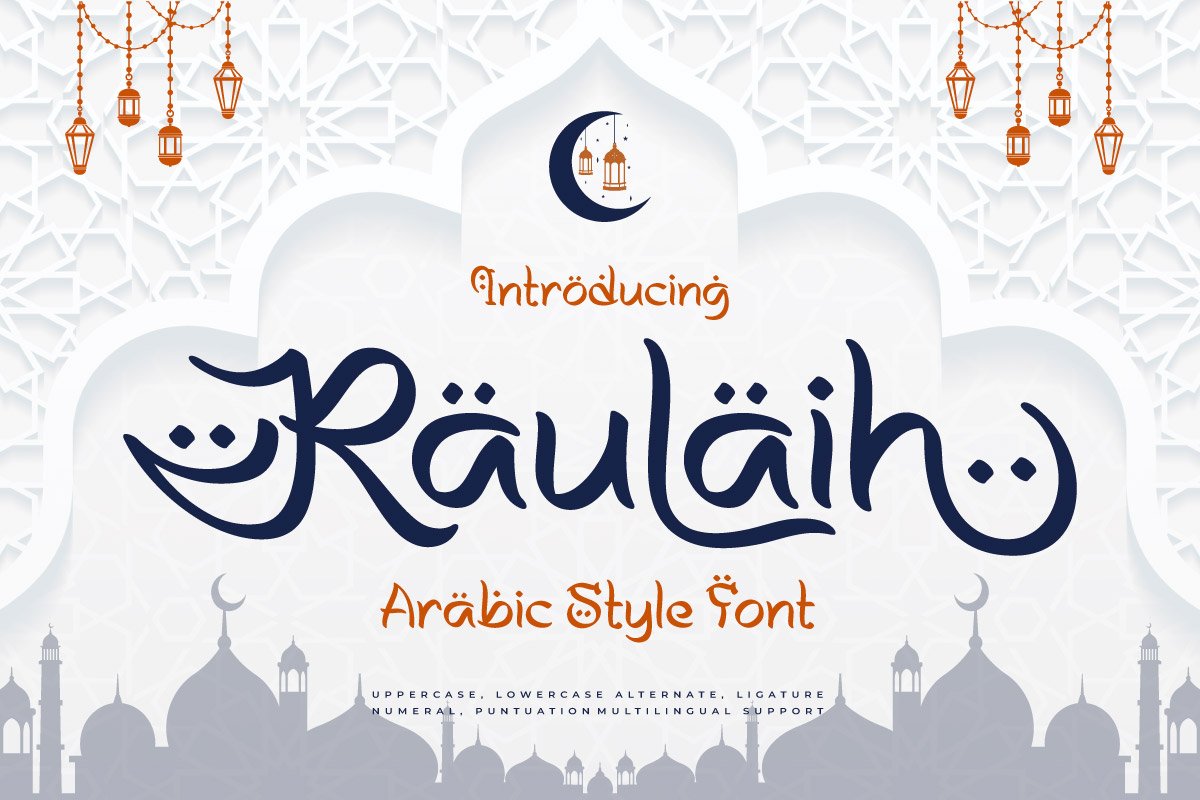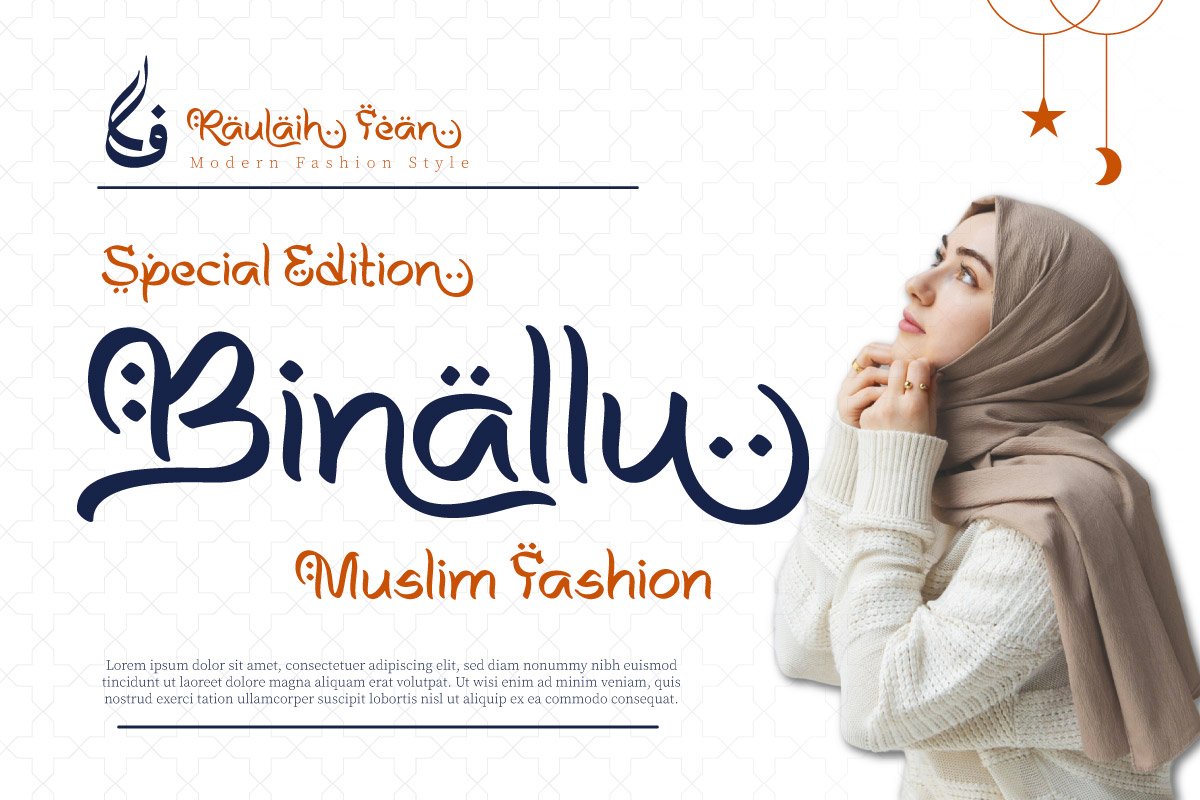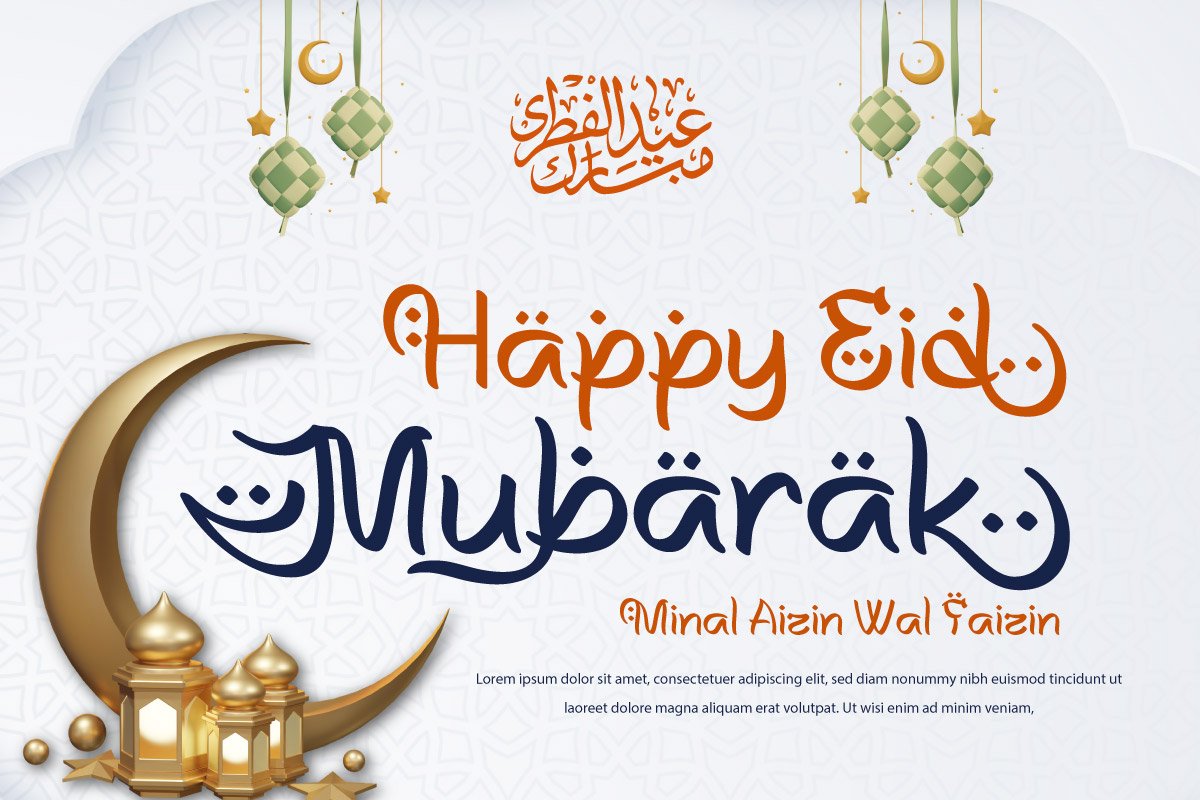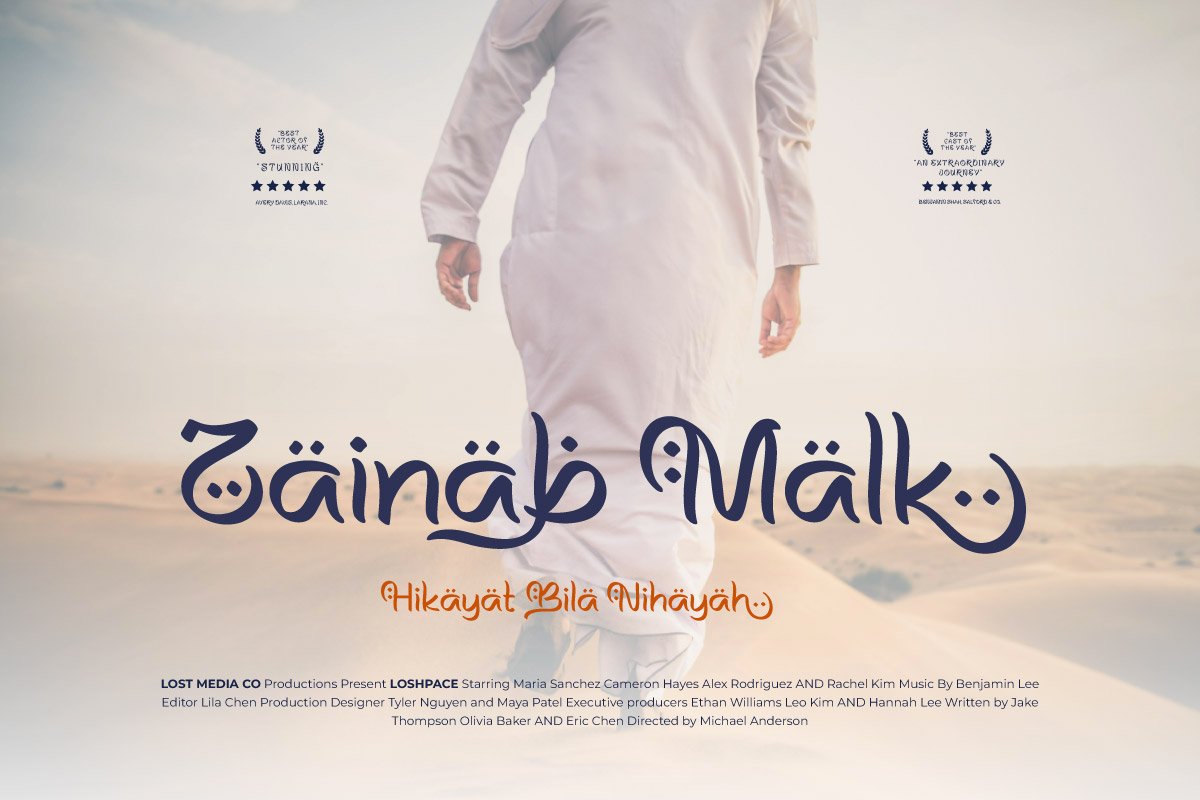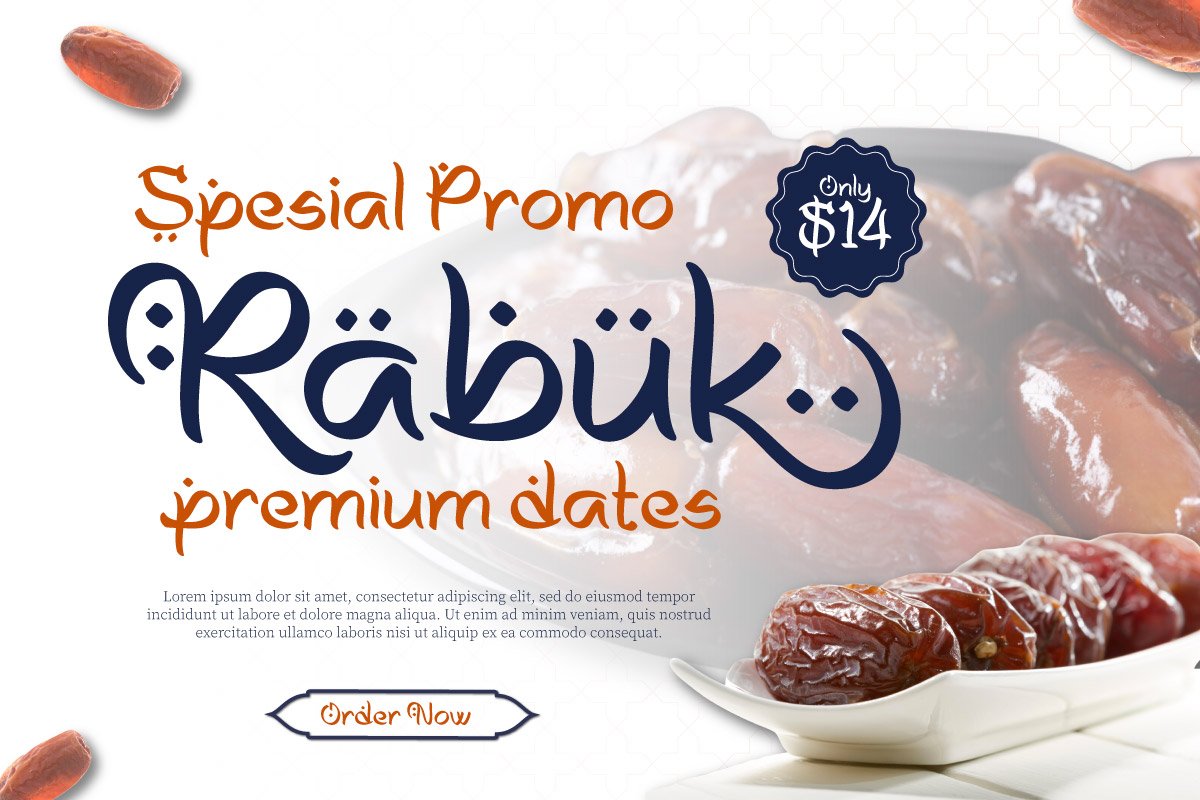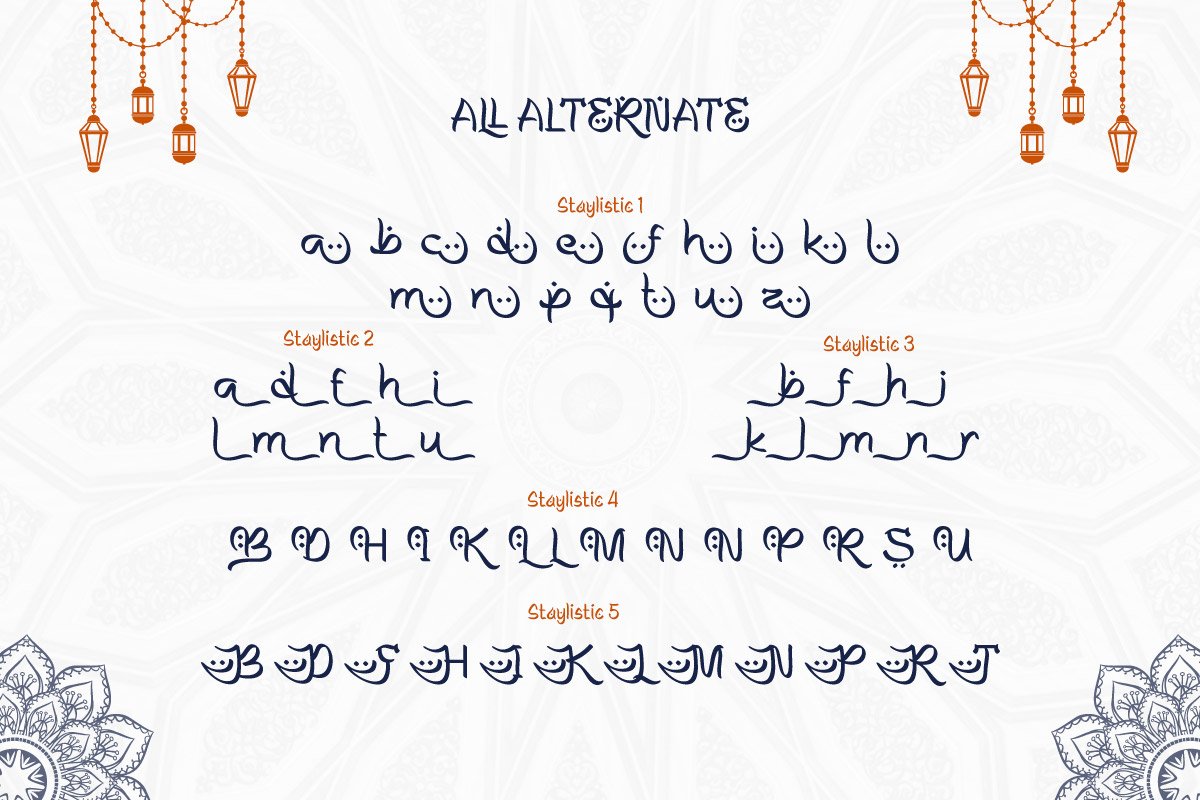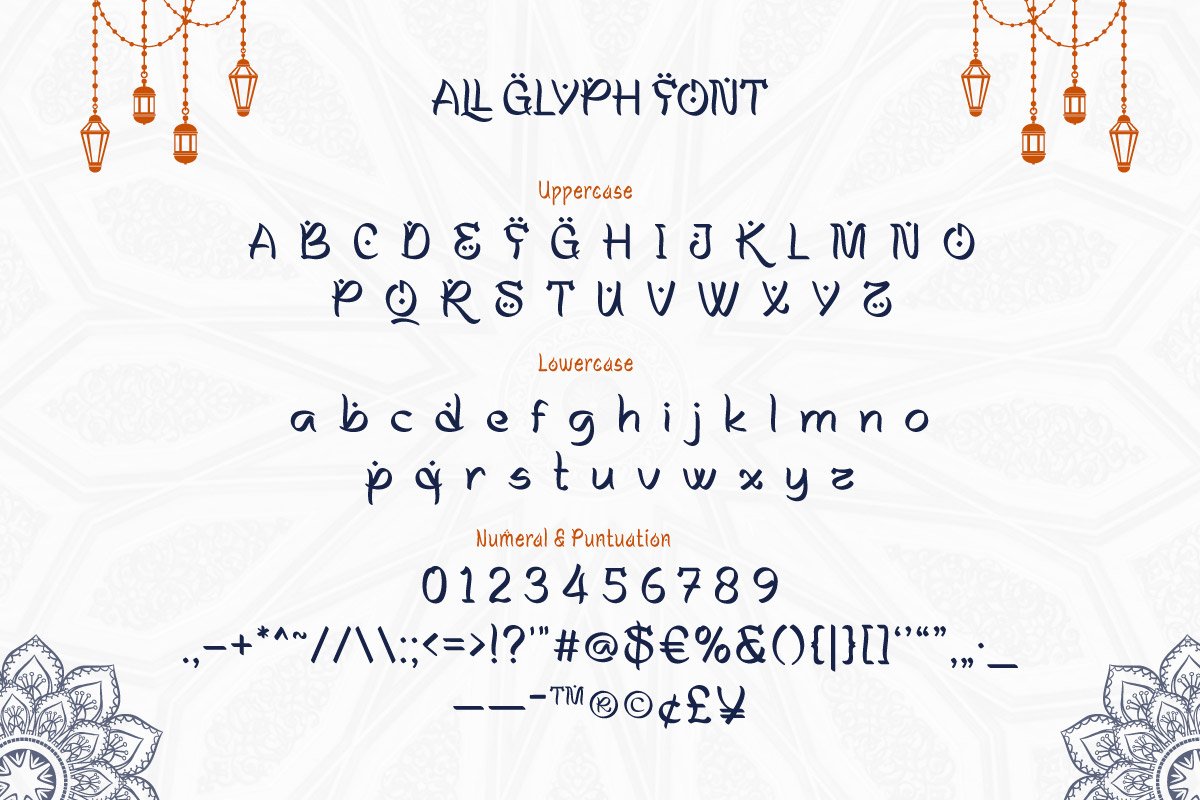
Raulaih – Arabic Style Font
Raulaih is an Arabic-style display font that blends cultural elegance with modern versatility. Inspired by the graceful flow of Middle Eastern calligraphy, this font is designed with smooth curves, delicate accents, and an inviting rhythm that adds depth and authenticity to your creative projects.
Raulaih comes with uppercase and lowercase characters, alternates, ligatures, numerals, punctuation, and multilingual support, giving designers the flexibility to craft truly unique works. Its enchanting style is perfect for Ramadan and Eid designs, Islamic-themed posters, invitations, packaging, branding, and editorial works that need a touch of timeless Arabic-inspired artistry.
Bring warmth, tradition, and cultural beauty into your designs with Raulaih — a font that speaks with elegance across borders.